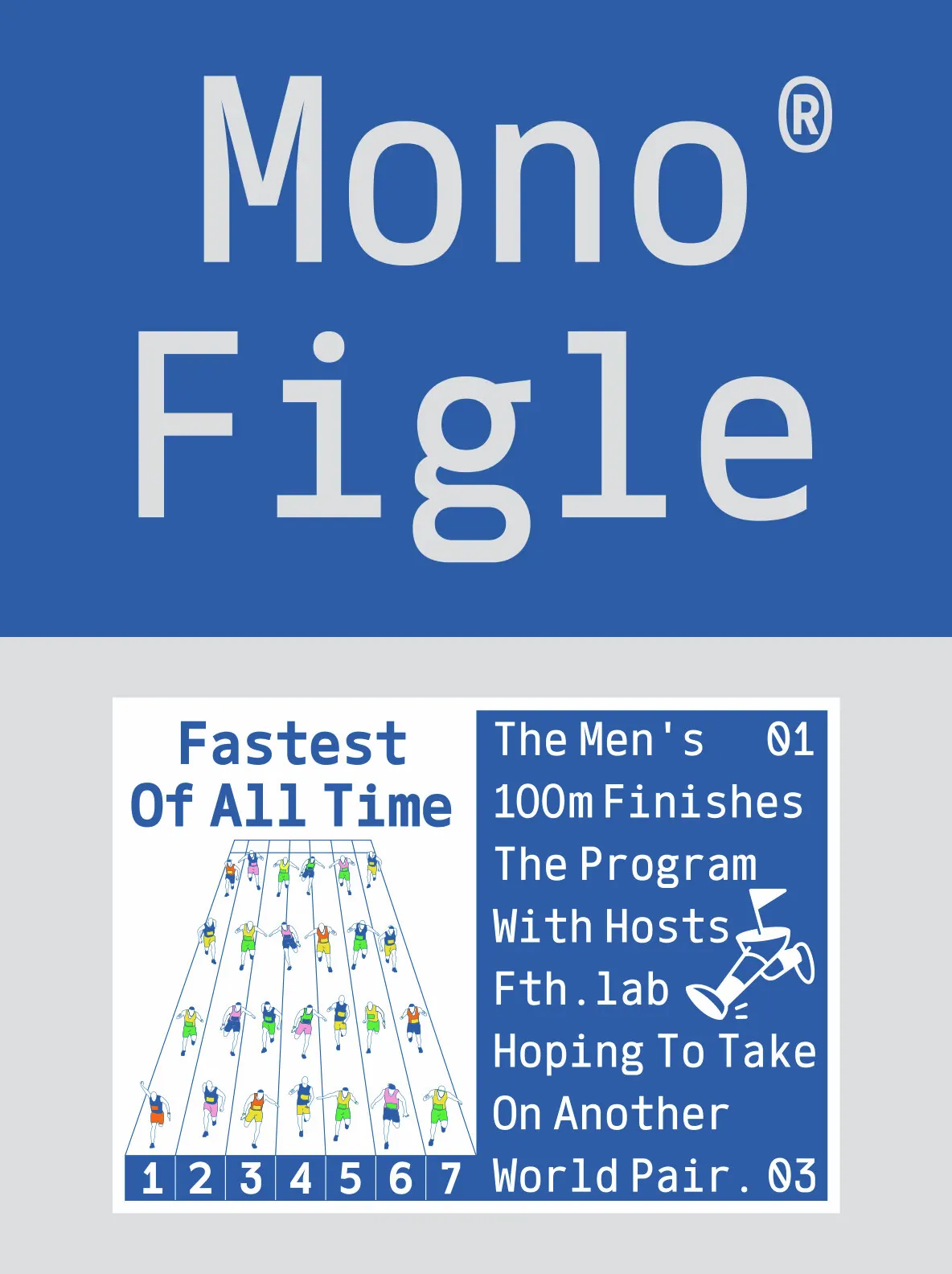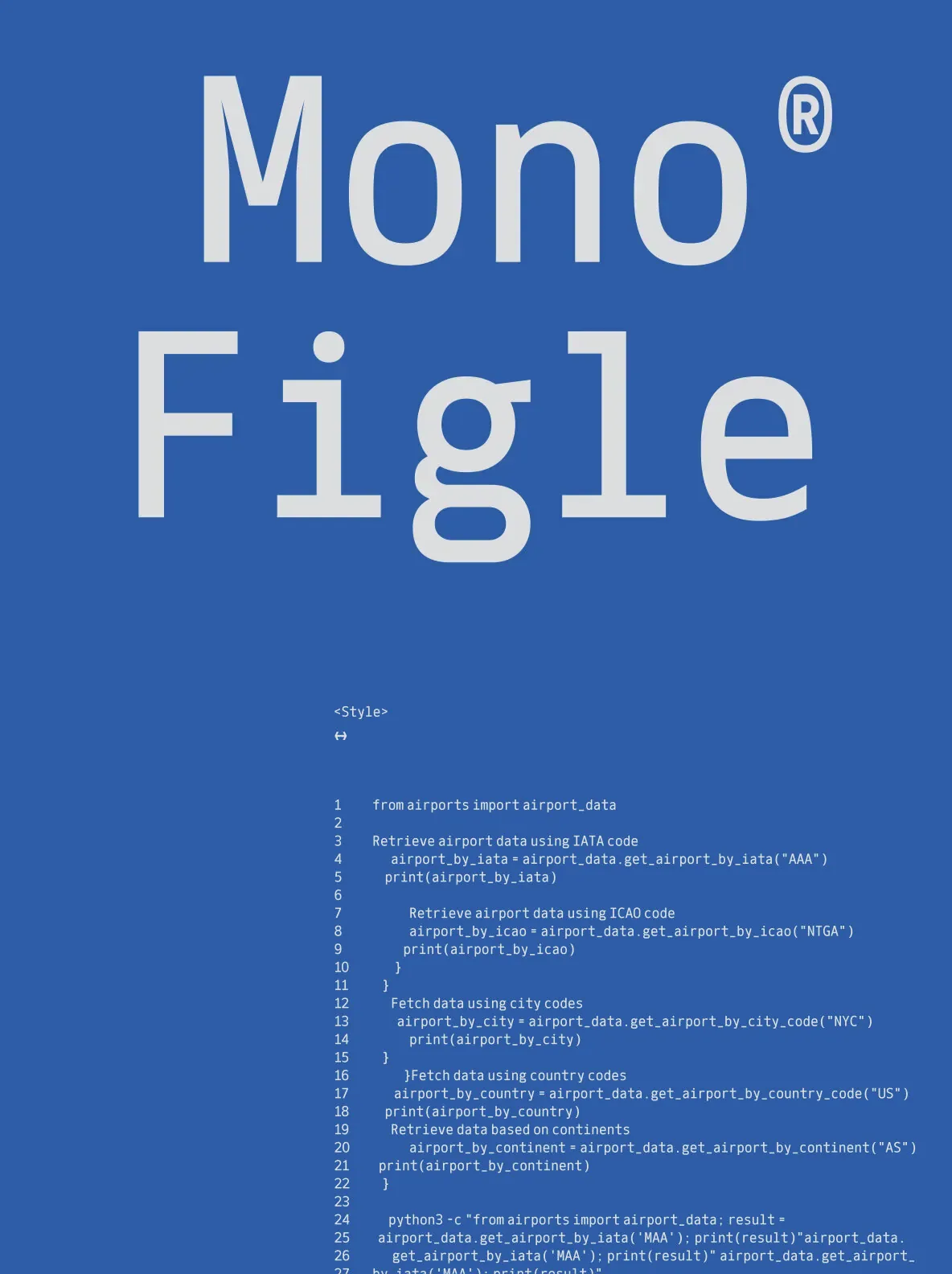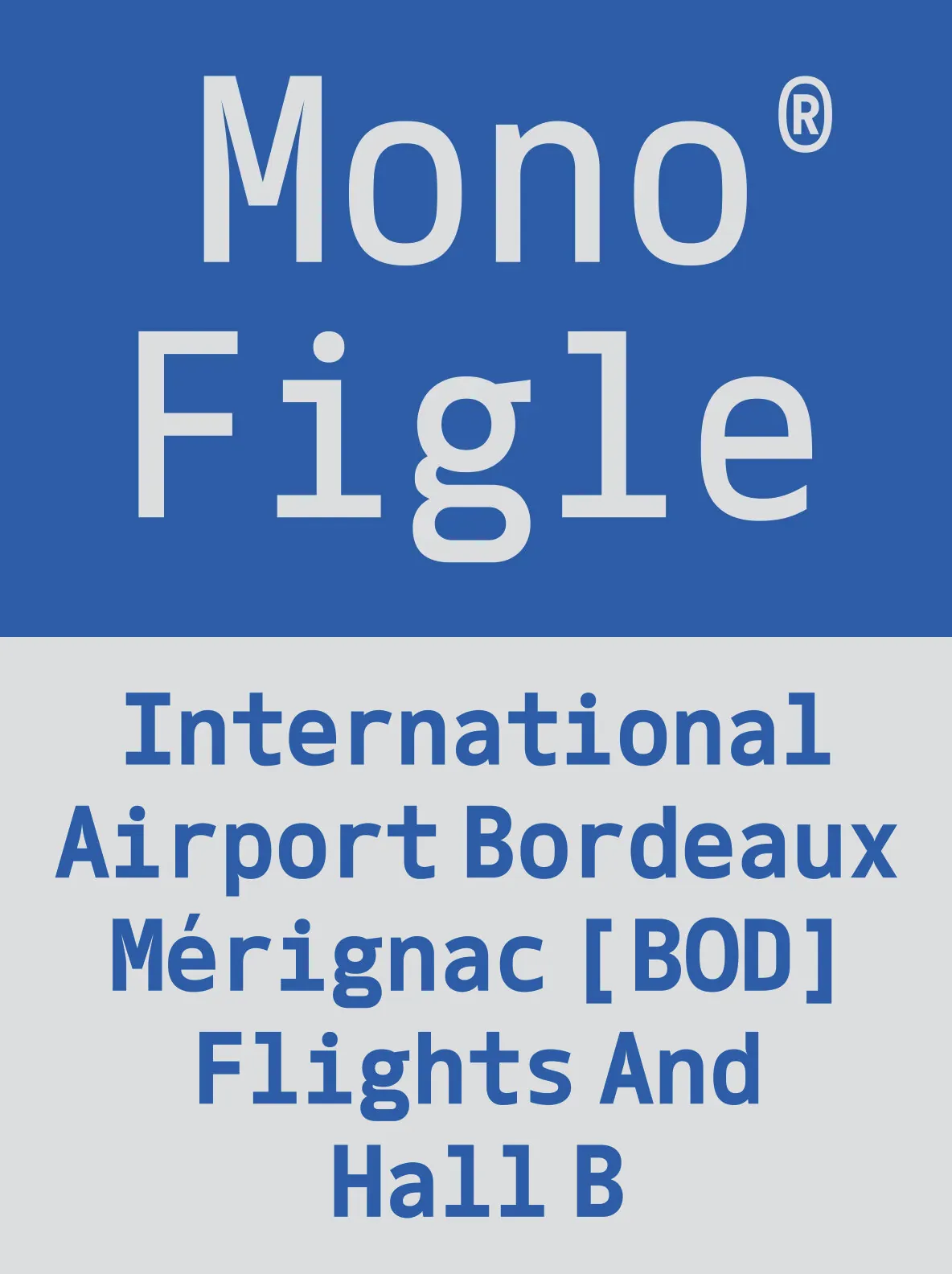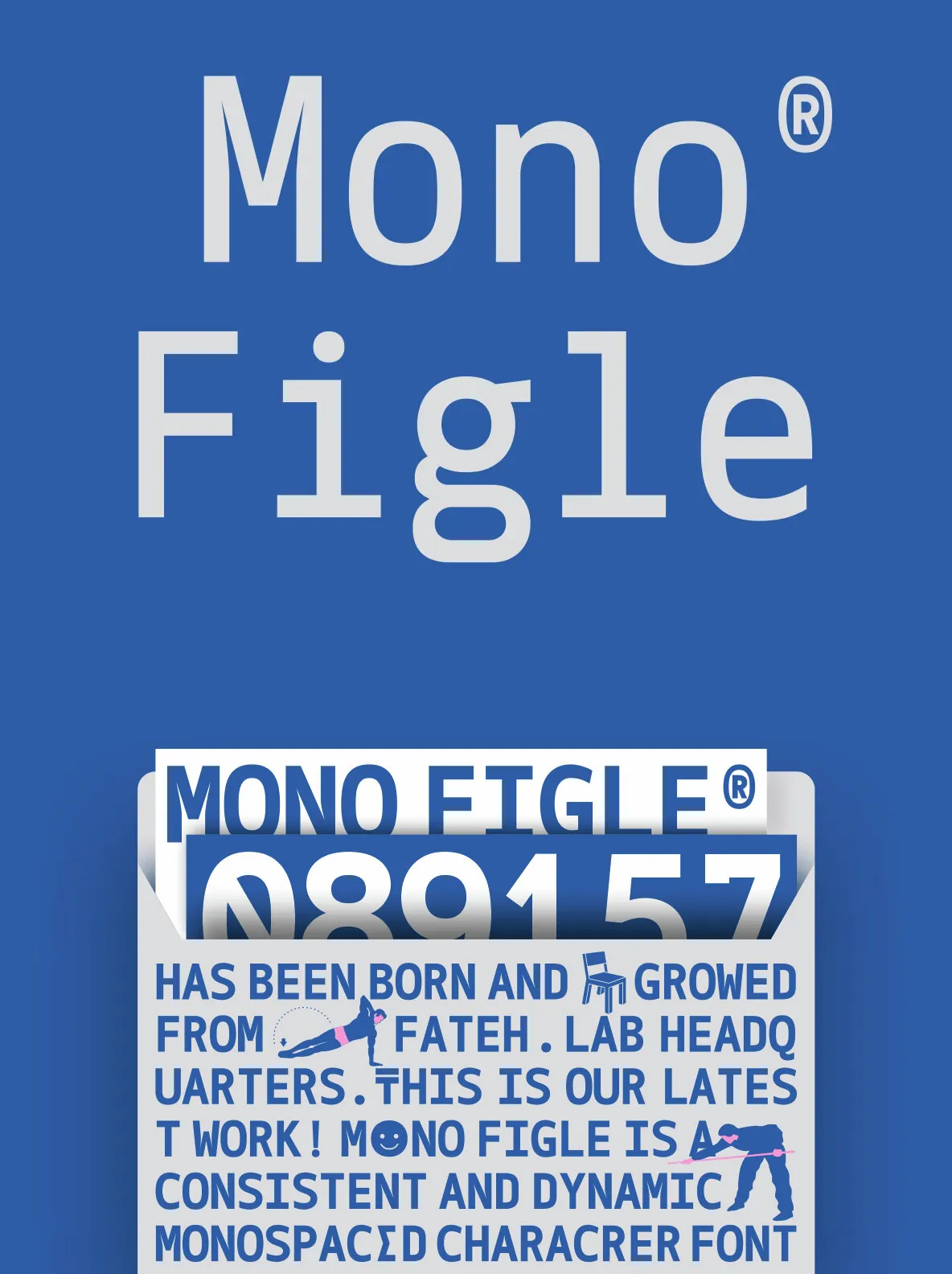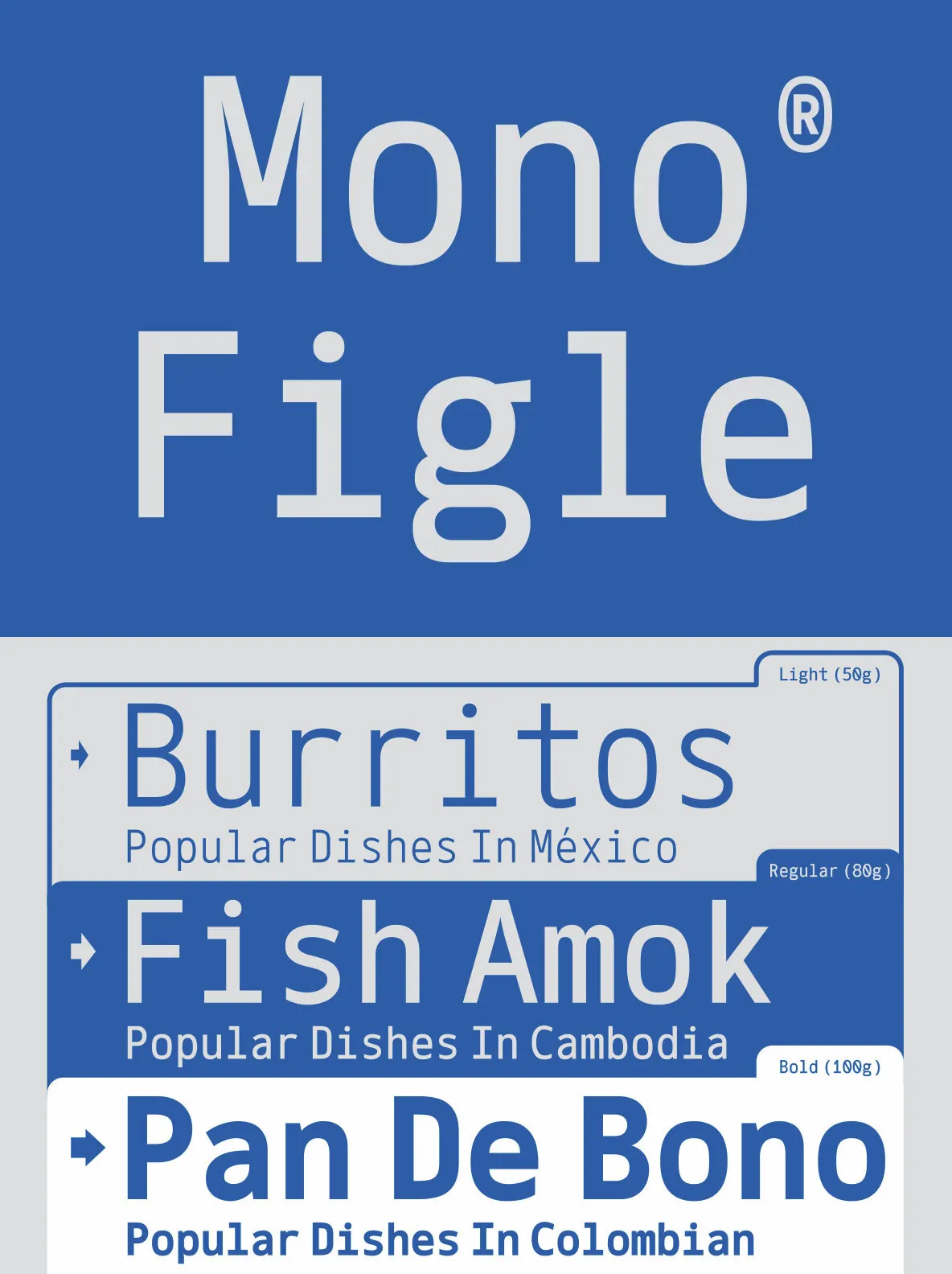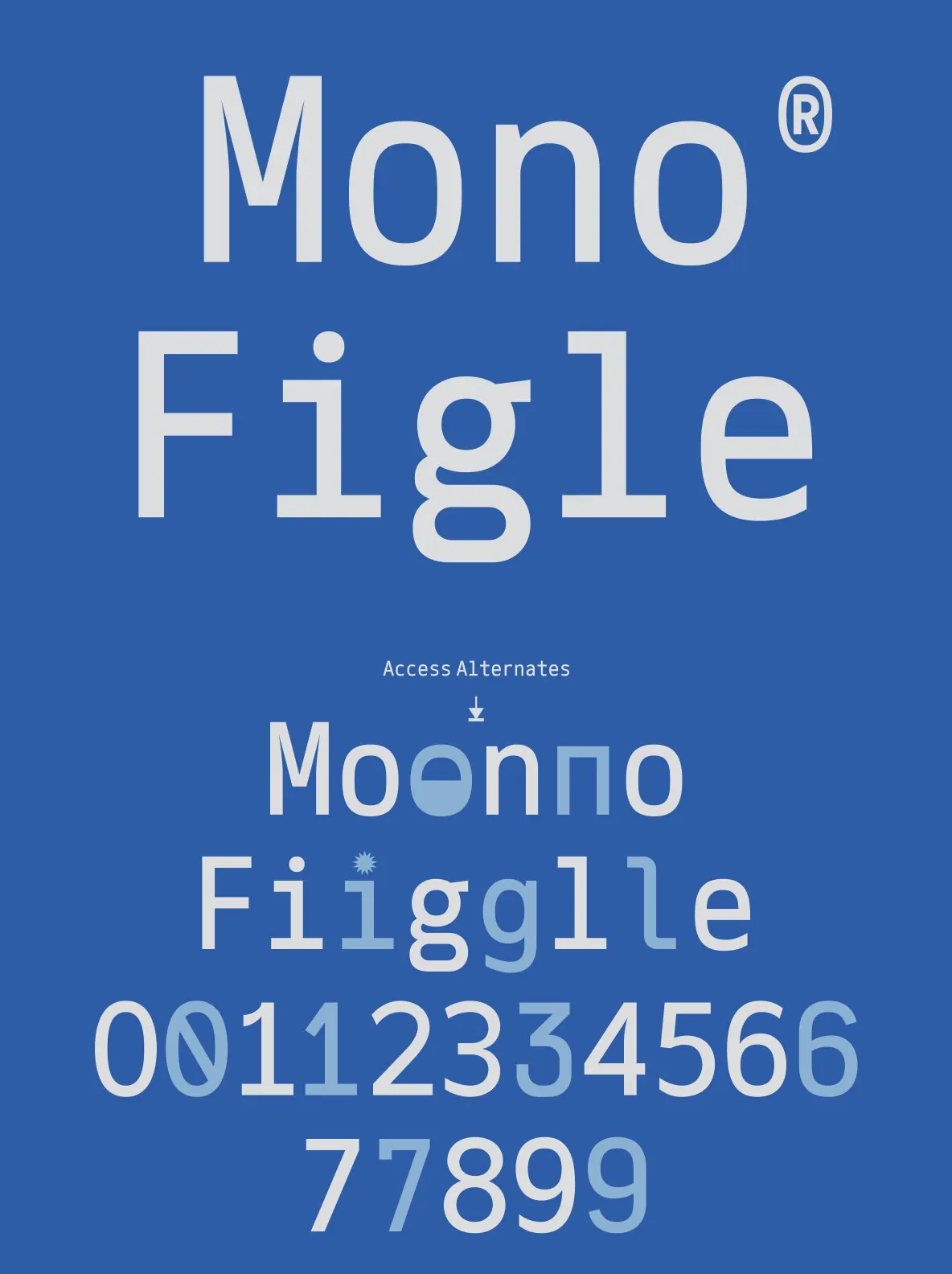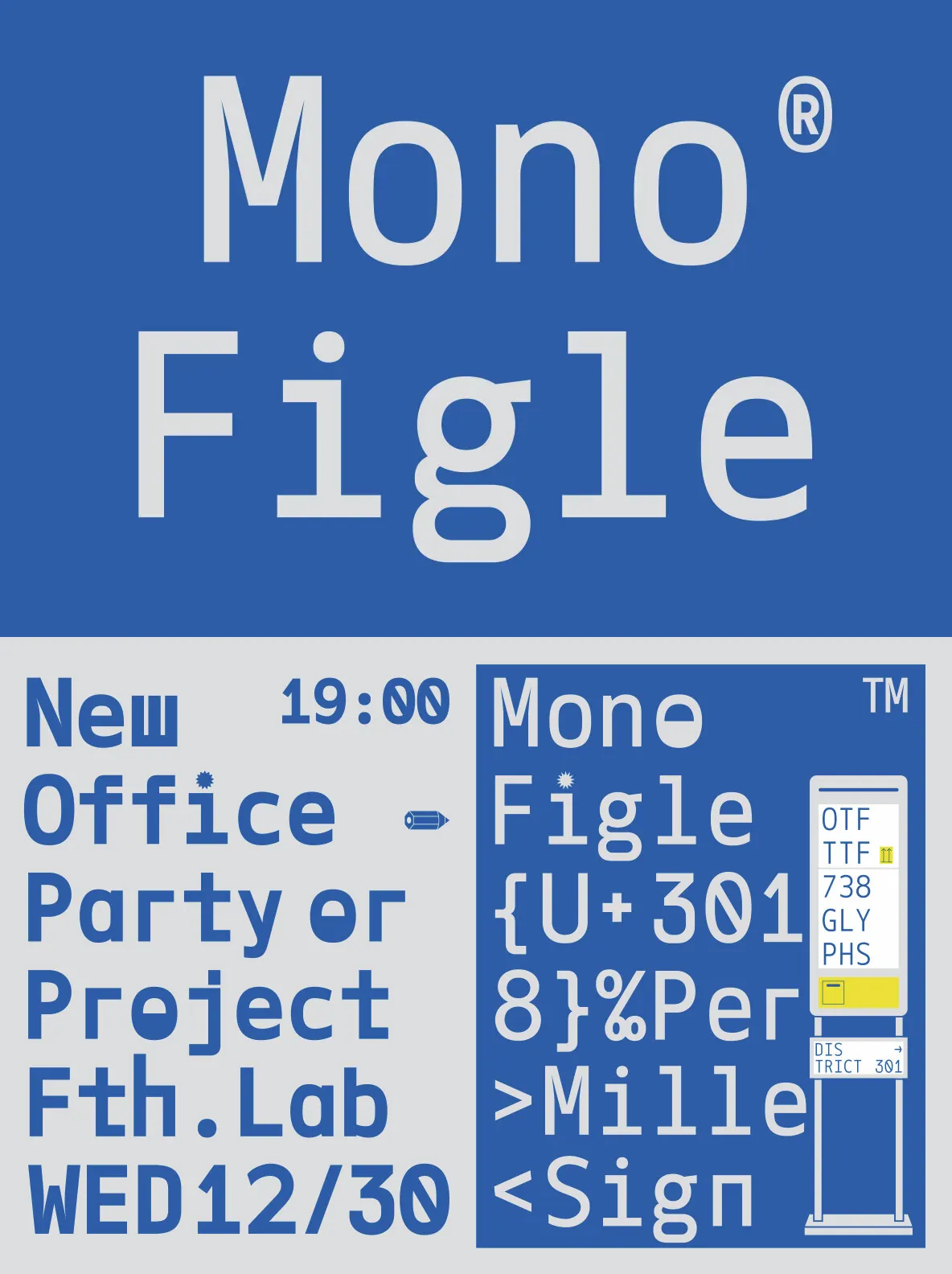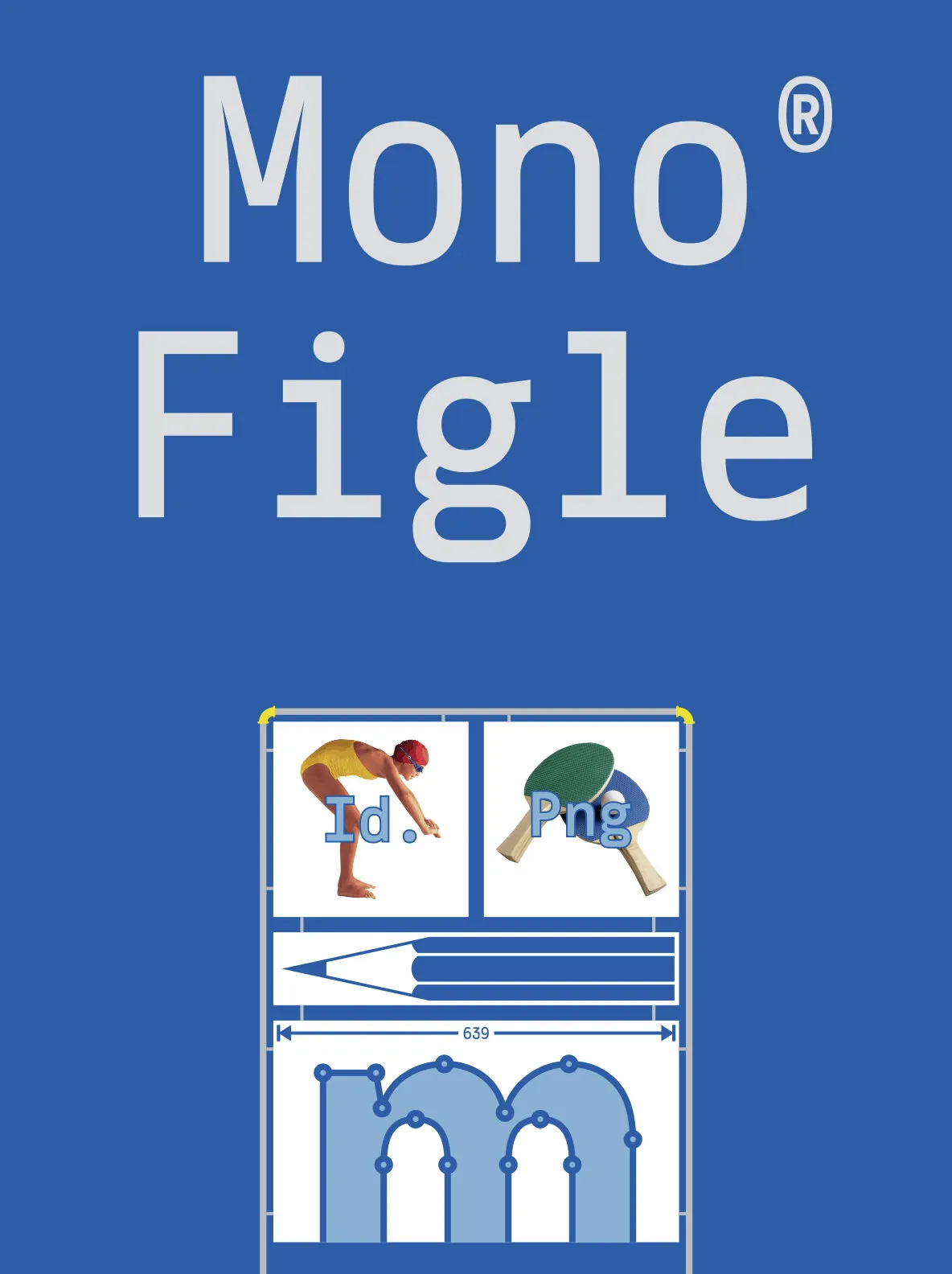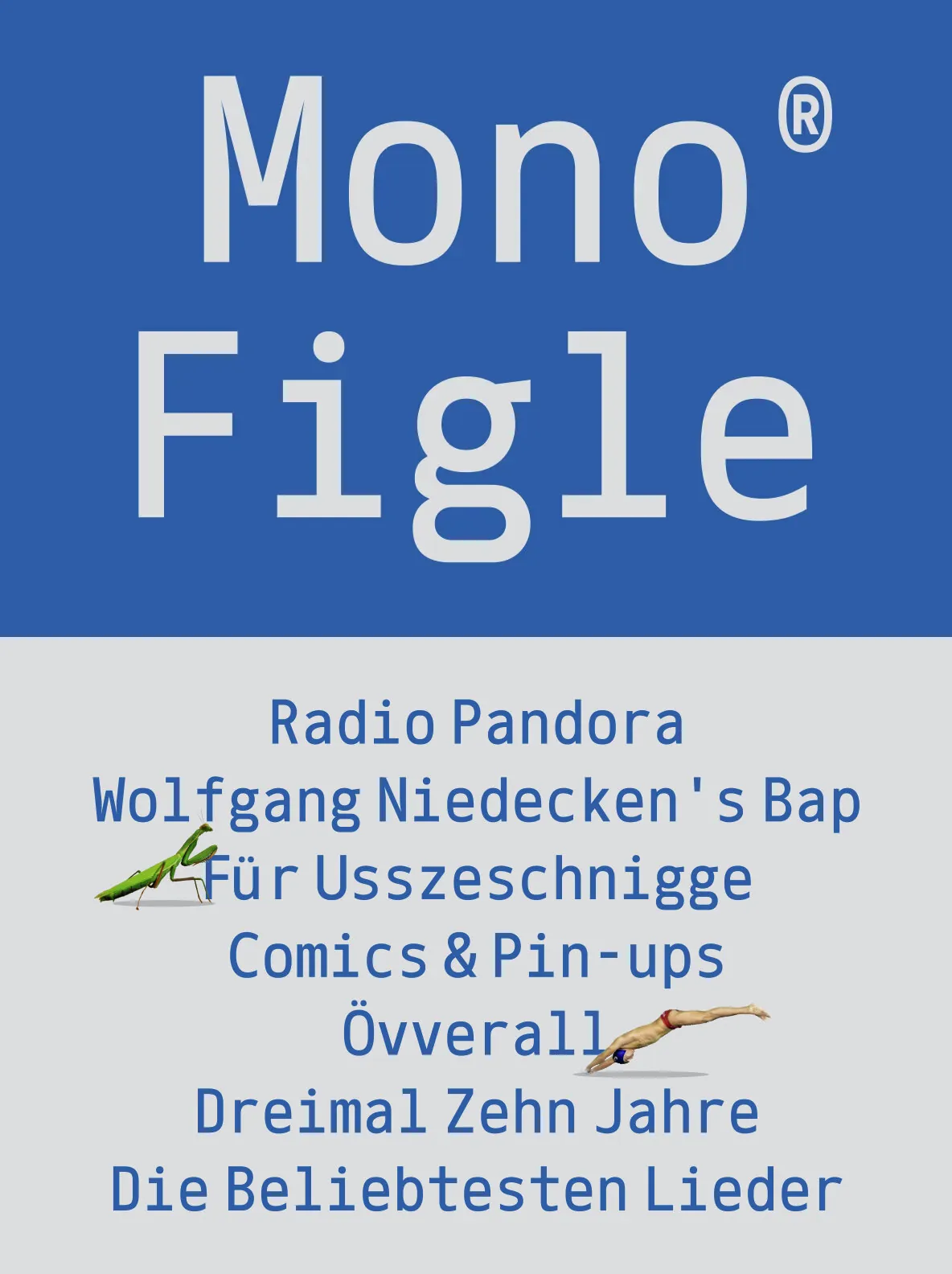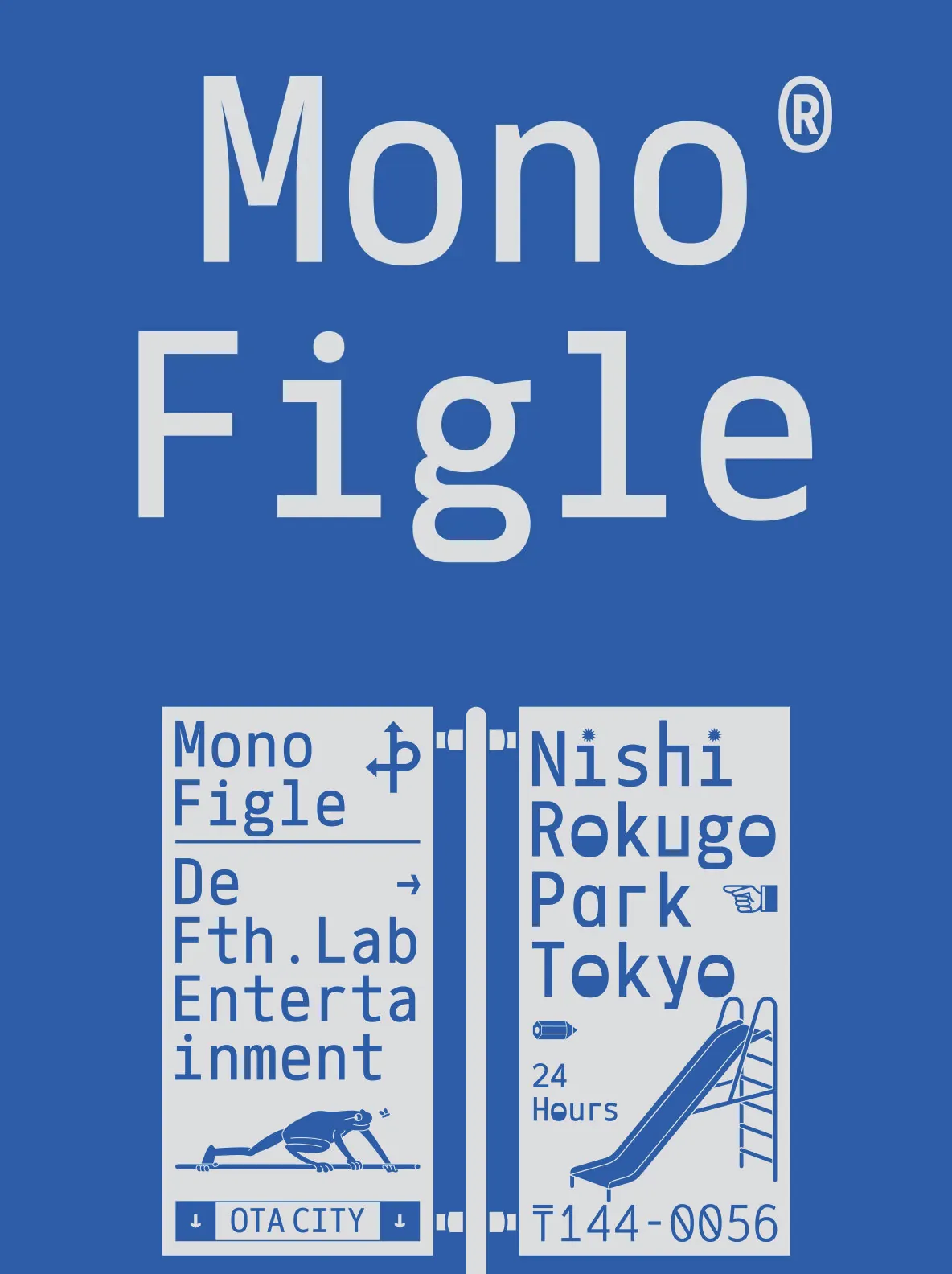
Mono Figle: Confident Mono for Big Headlines
A monospaced font with a consistent, dynamic style, Mono Figle balances strength with softness for modern design work. The bold weight gives it clear presence, so it reads well when you need typography that looks deliberate and composed. Use it when you want a clean, structured rhythm without losing personality.
Designed to meet contemporary standards, it performs especially well at display sizes. Reach for it in headlines, magazine covers, and large print formats where each character needs to land with clarity. It also suits logos, studio designs, posters, and social media graphics—anywhere you’re building eye-catching visuals or professional branding elements that should stand out with distinction. Designed by Fateh.Lab.